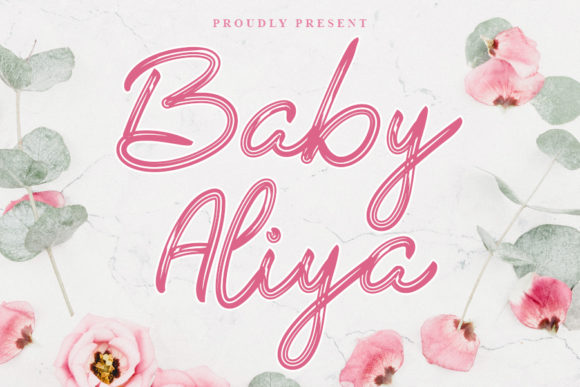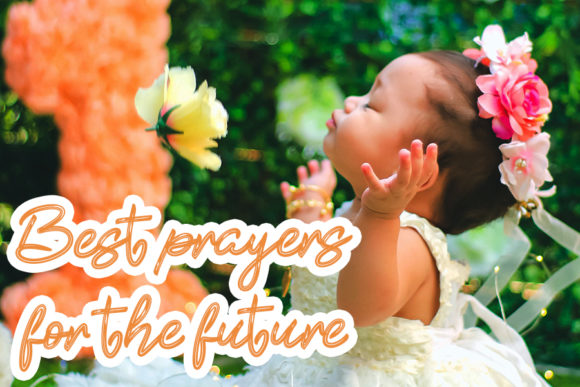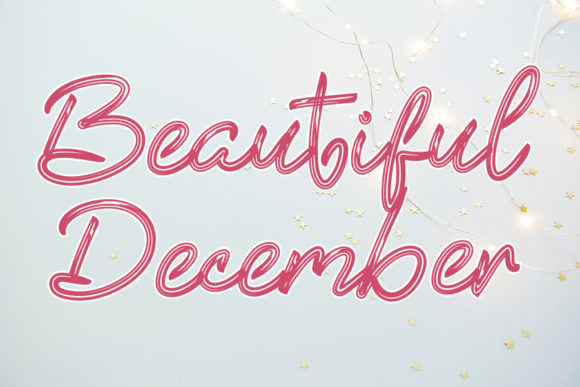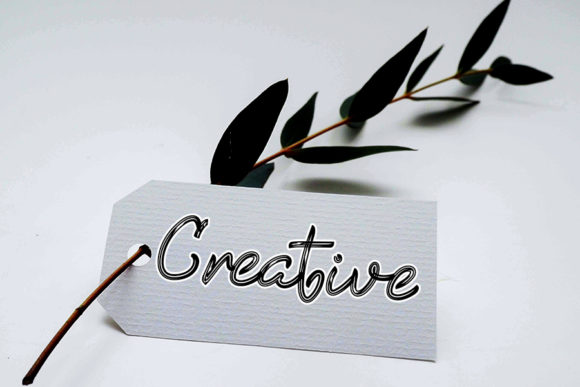
About Baby Aliya Font
Baby Aliya is a relaxed and flowing handwritten font. This gentle font will look gorgeous on a variety of design ideas. It will add a joyful and romantic touch to each of your projects!